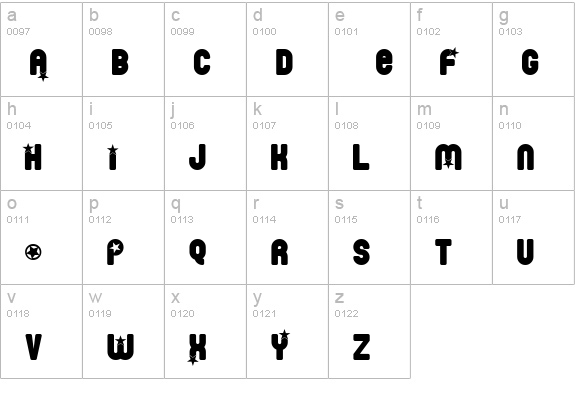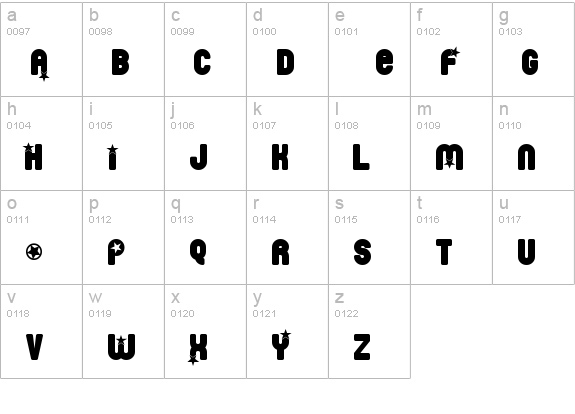
Introducing the bold and alluring Pornstar font, designed to make a statement with its edgy and seductive charm. This eye-catching typeface perfectly captures the essence of the adult entertainment industry, with its sleek curves and modern flair. Whether you're looking to add a touch of excitement to your designs or create a striking headline, Pornstar font is sure to command attention. The best part? Pornstar font is completely free to download at FontsMarket.com, making it accessible to anyone looking to add a touch of allure to their projects. Embrace the bold and daring spirit of the adult entertainment world with Pornstar font and watch your designs come to life with passion and excitement.